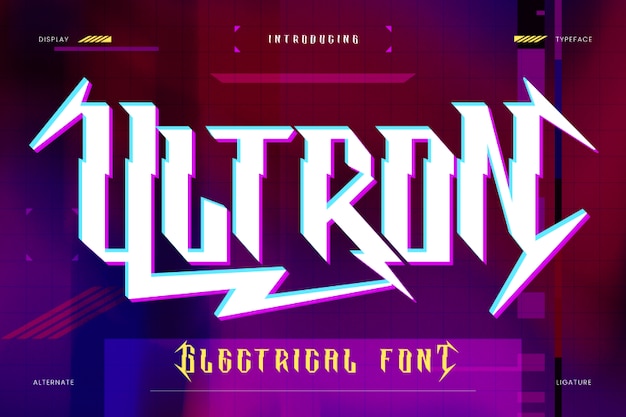
Ultron Font
Ultron is a dynamic font that electrifies designs with its bold, sharp lines and lightning-inspired motifs. Evoking the raw energy of electric bolts, its angular shapes and striking curves create a sense of movement and power. Perfect for tech-related projects, posters, and branding, Ultron adds an energetic flair that commands attention and embodies the essence of high voltage and innovation.